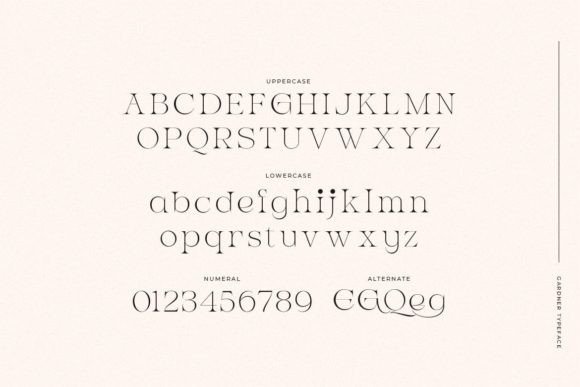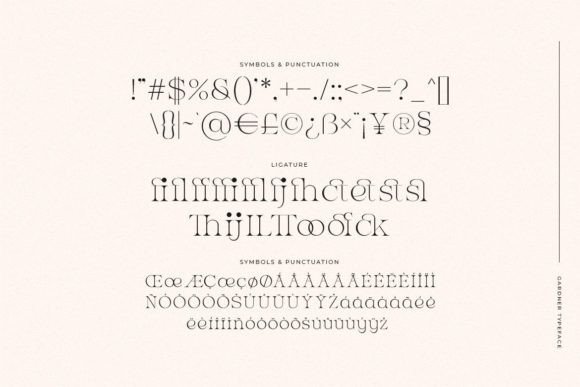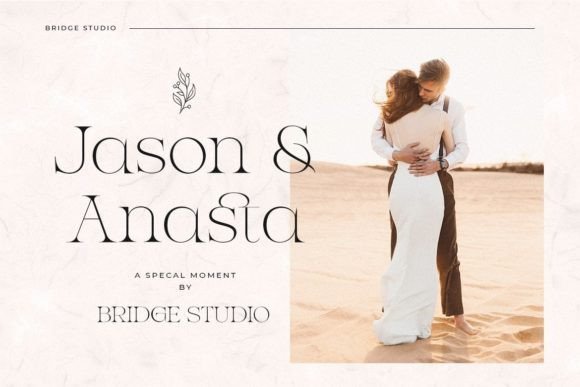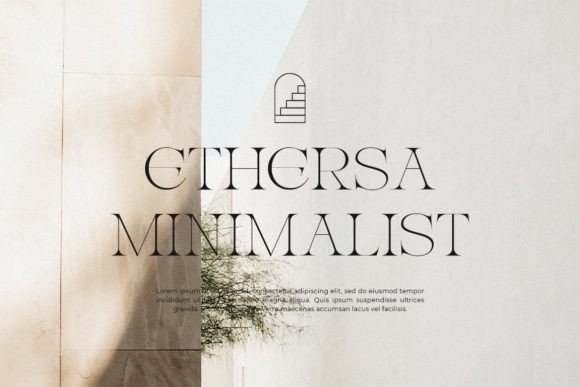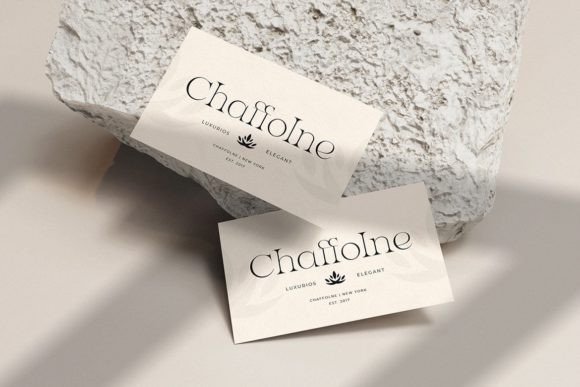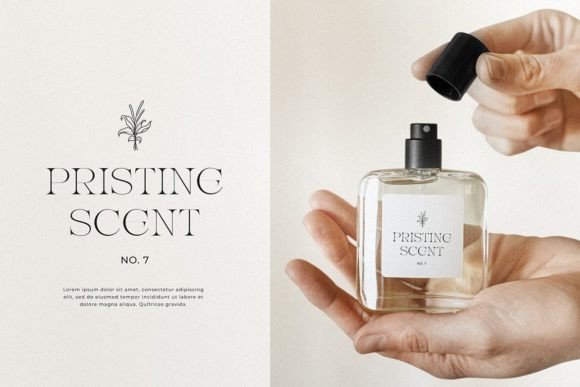
Gardner Font: A Handcrafted Display Typeface for Creative Expression
In the world of typography, a good font can make all the difference in conveying a message, expressing a brand’s personality, or adding a touch of elegance to a design project. For designers and crafters looking for a versatile and visually appealing typeface, Gardner Font is an excellent choice. This display typeface has been carefully handcrafted to become a true favorite among designers, and its casual charm makes it perfect for a wide range of applications.
The Characteristics of Gardner Font
Gardner Font is a display typeface that boasts a unique blend of casual elegance and down-to-earth readability. Its carefully crafted design makes it incredibly versatile, allowing it to shine in various contexts, from busy backgrounds to standalone headlines. The font’s handcrafted nature gives it a personal touch, making it an excellent choice for designers looking to add a human element to their work.
What Makes Gardner Font Stand Out?
So, what sets Gardner Font apart from other typefaces? Here are a few key characteristics that make it a standout choice:
- Casual Charm: Gardner Font has a relaxed, casual vibe that makes it perfect for designs that require a friendly, approachable tone.
- Readability: Despite its casual nature, Gardner Font remains highly readable, even in smaller sizes or on busy backgrounds.
- Versatility: This font is incredibly versatile, making it suitable for a wide range of applications, from headings and titles to logos and branding.
- Handcrafted: Gardner Font’s handcrafted nature gives it a unique, personal touch that sets it apart from more generic typefaces.
Using Gardner Font in Design Projects
Gardner Font is an excellent choice for various design projects, including:
- Headings and Titles: Use Gardner Font to create eye-catching headings and titles that grab attention and add a touch of elegance to your designs.
- Logos and Branding: The font’s casual charm and versatility make it an excellent choice for logos and branding projects that require a friendly, approachable tone.
- Posters and Flyers: Gardner Font is perfect for posters and flyers that require a bold, attention-grabbing headline or title.
- Web Design: Use Gardner Font to add a touch of personality to your website’s design, whether it’s as a heading, title, or even a call-to-action button.
Tips for Getting the Most Out of Gardner Font
To get the most out of Gardner Font, here are a few tips to keep in mind:
- Experiment with Sizes: Don’t be afraid to experiment with different font sizes to find the perfect balance for your design.
- Play with Colors: Gardner Font looks great in a variety of colors, so don’t be afraid to try out different color combinations to find the one that works best for your design.
- Pair it with Other Fonts: Gardner Font pairs well with a variety of other fonts, so feel free to experiment with different font combinations to create a unique look.
Gardner Font is a handcrafted display typeface that offers a unique blend of casual charm, readability, and versatility. Its carefully crafted design makes it perfect for a wide range of design projects, from headings and titles to logos and branding. Whether you’re a designer or crafter looking for a font that will add a touch of elegance and personality to your work, Gardner Font is an excellent choice.